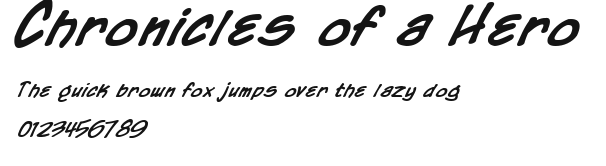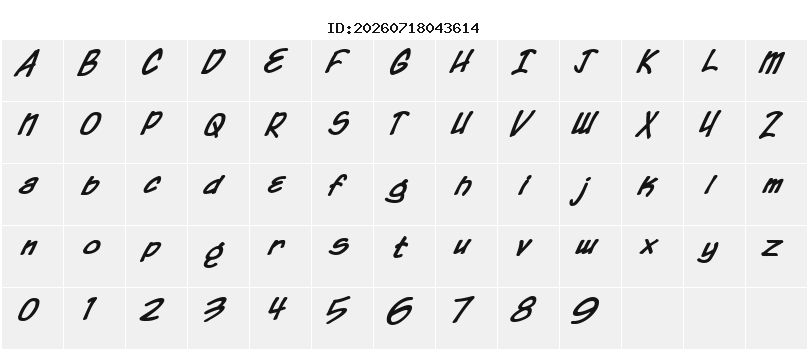
Chronicles of a Hero Preview
• Font Name: Chronicles of a Hero
• Font ID: Chronicles of a Hero
• Full Font Name: Chronicles of a Hero Bold
• PostScript Name: ChroniclesofaHeroBold
About Chronicles of a Hero.ttf
Chronicles of a Hero.ttf is a modern, elegant sans-serif font designed for ultimate readability and visual harmony. Perfect for branding, headlines, web design, and print materials.